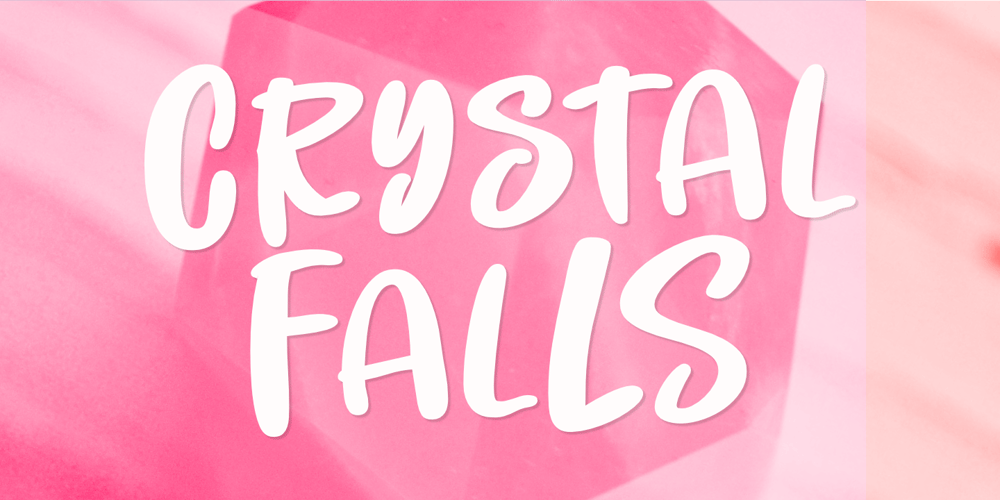
Crystal Falls
Crystal Falls font
Crystal Falls Font Family was designed by Aldy Sidik and published by Epiclinez. Crystal Falls contains 1 styles and family package options. If you’re into that bold, fun, modern look, then Crystal Falls is the right choice for you. This versatile font is great for headlines, apparel, posters, logos, and product packaging, due to its simplicity and playfulness. Get creative with this compact gem of font and let your imagination run wild!So what’s included : Standard Latin Numbers, symbols, and punctuations Multilingual Support. Accented Characters : ÀÁÂÃÄÅÆÇÈÉÊËÌÍÎÏÑÒÓÔÕÖØŒŠÙÚÛÜŸÝŽàáâãäåæçèéêëìíîïñòóôõöøœšùúûüýÿžß PUA Encoded and fully accessible without additional design software Simple Installations Works on PC & Mac Thank You!